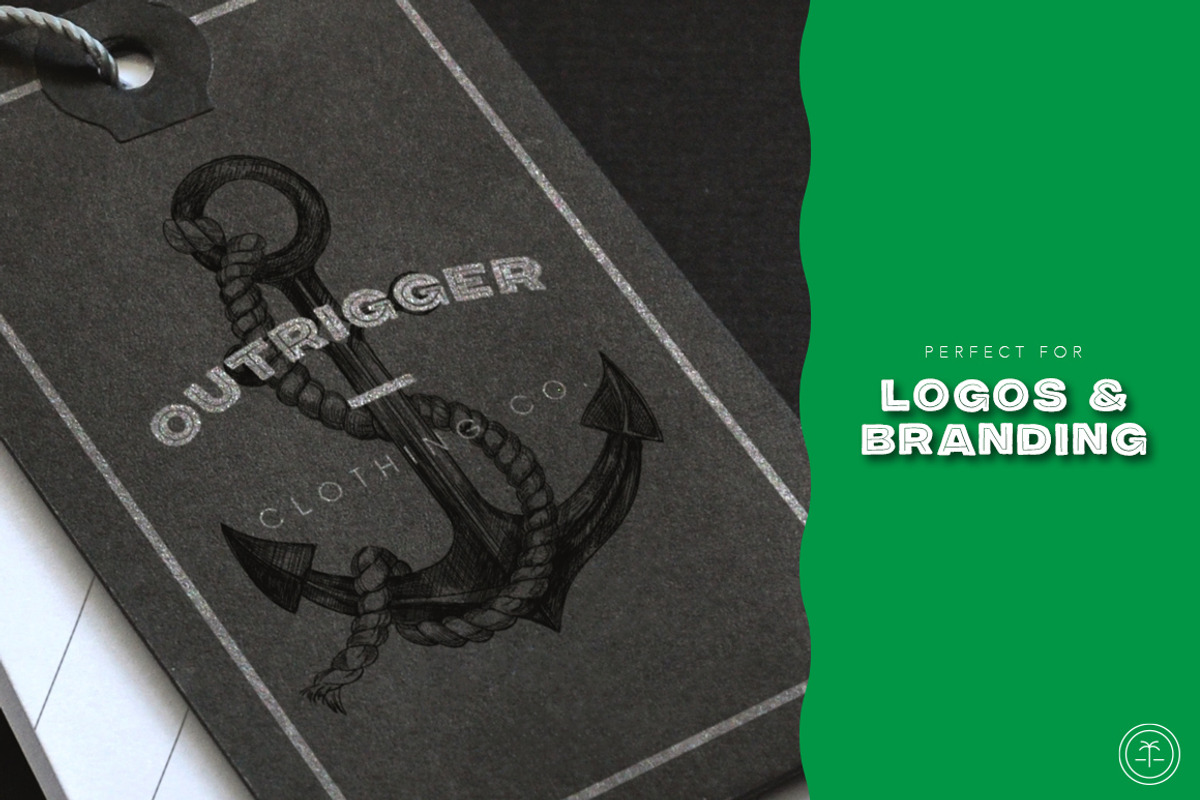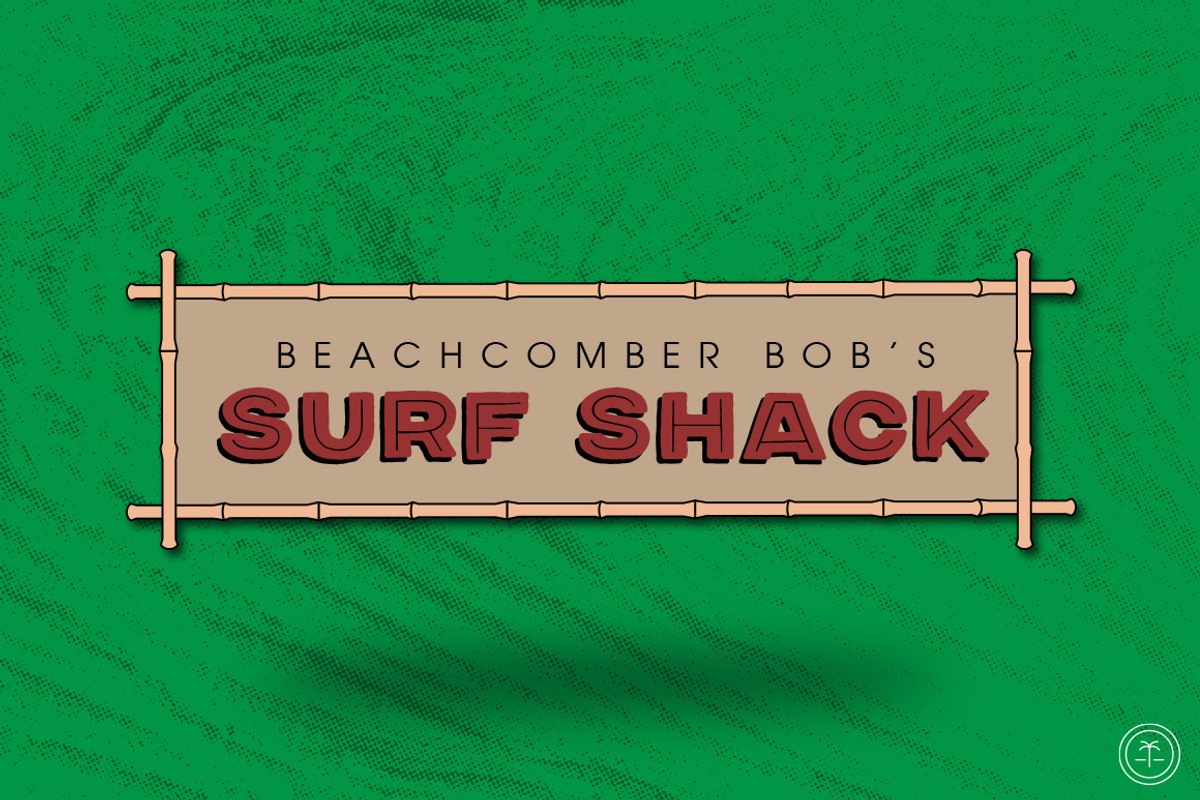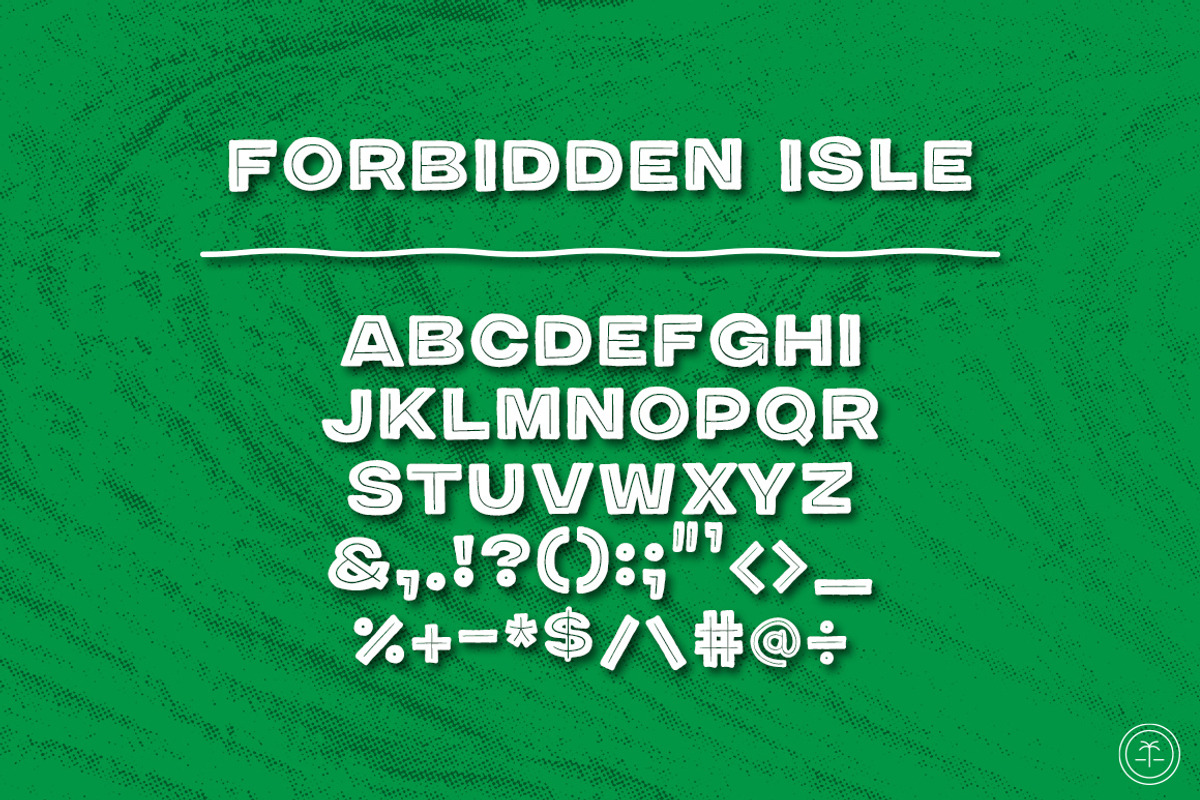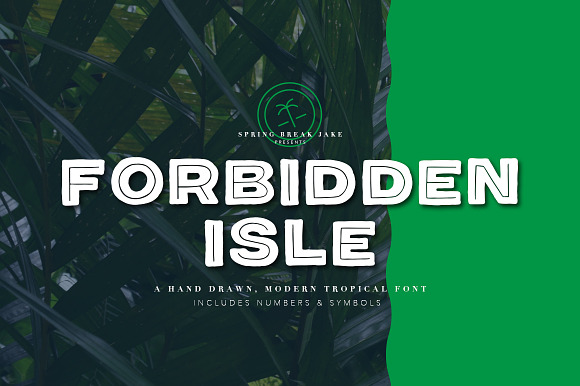
Forbidden Isle Tropical Font
Forbidden Isle plays on the retro surfy fonts of the 70s, brought into the modern times with a cleaner, bold look. Images are conjured up of bamboo bars, grass skirts, and eclectic mugs. This hand-drawn, sans serif typeface was created to express my love for all things tropical.
Forbidden Isle pairs well with both serif and sans serif fonts and is perfectly suited to add life to your next illustration, invite, product, and more.